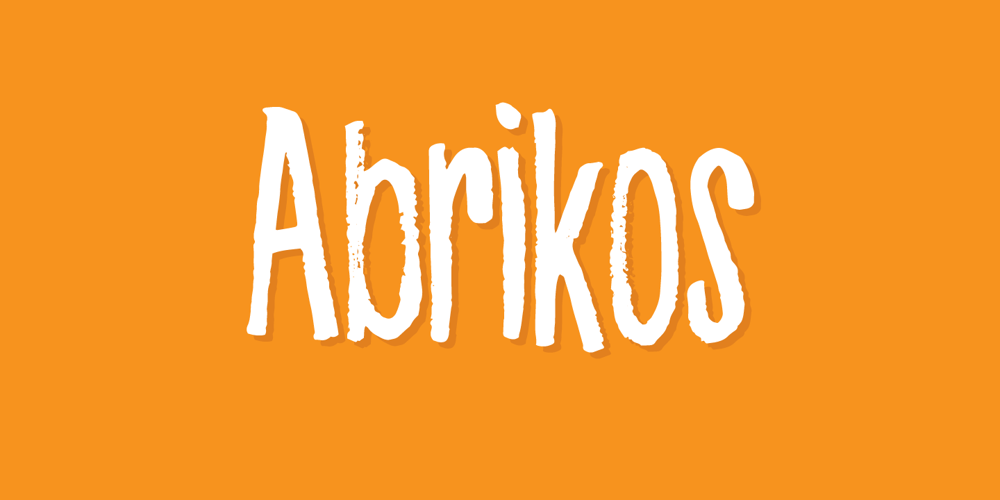
Abrikos Font Family was designed by Jakob Fischer and published by PizzaDude.dk. Abrikos contains 1 styles and family package options. Abrikos is apricot in danish. A lovely and sweet fruit, often underestimated and not very well known – but if you ask me, it is delicious! The letters were drawn using a small brush, and as you can see, I almost ran out of ink – leaving the letters somewhat rough. I made 4 different versions of each lowercase letter, and these cycle automatically as you type in order to make some randomness. I threw in an extensive set of international characters as well! Enjoy!